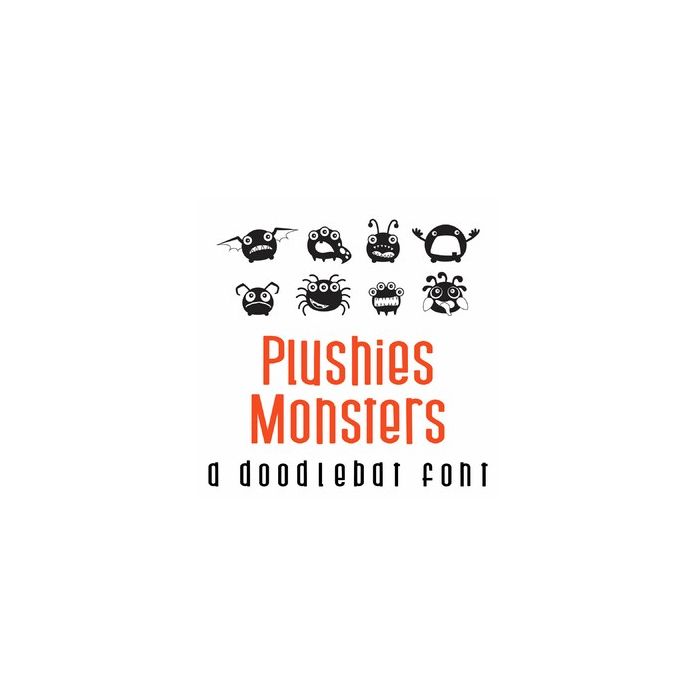
Plushies Monsters Doodlebat Font
This fun doodlebat font features 26 little monsters. Perfect for cards, gifts, decor, crafts, scrap book pages, planner stickers and more!